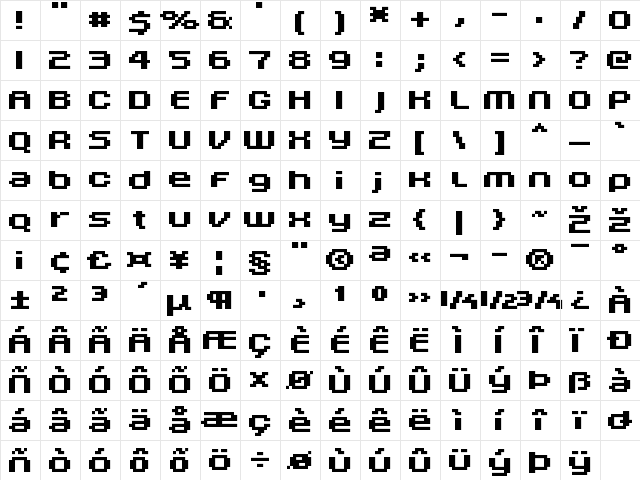
FFF Nadador Bold Regular
| Foundry | Fonts For Flash |
| Designer | Fonts For Flash |
Design Context for FFF Nadador Bold Typeface
FFF Nadador Bold offers clean, dependable letterforms without strong stylistic allegiance, making it a practical choice for designers who need flexibility. Its bold stroke weight gives it real presence on the page.